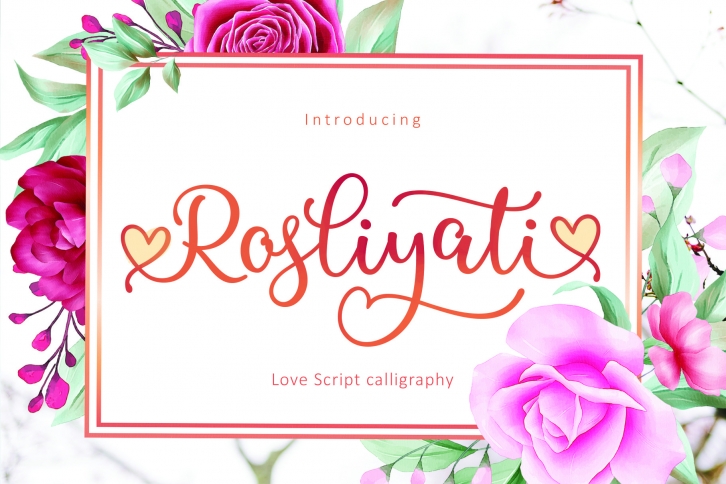
Rosliyati script is a trendy and unique font with an authentic style. It was designed by Sulthan studio and it's a great choice for creative people who need such a font. It was released on July 26, 2020 and the file size is 8.52 MB. Rosliyati script will add an organic vibe to any design idea!